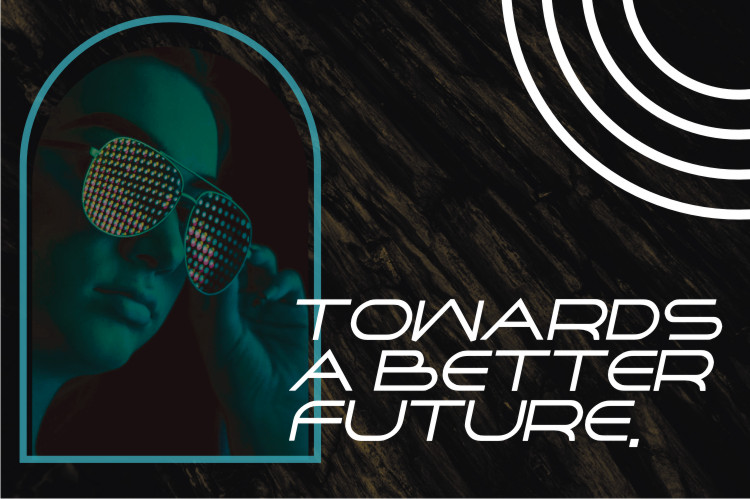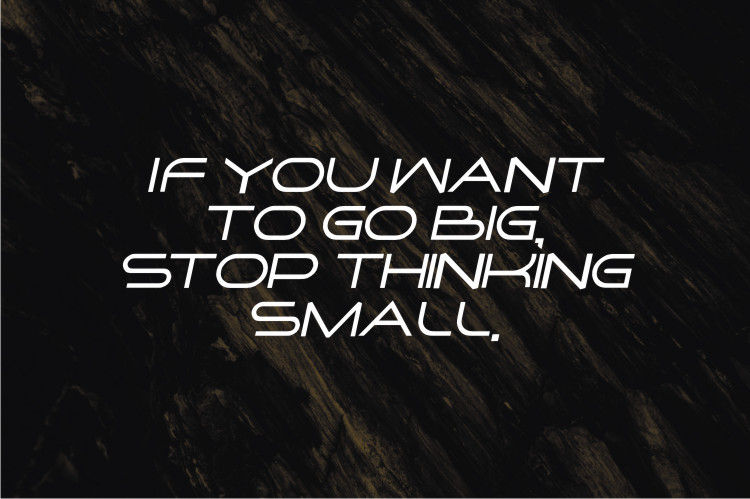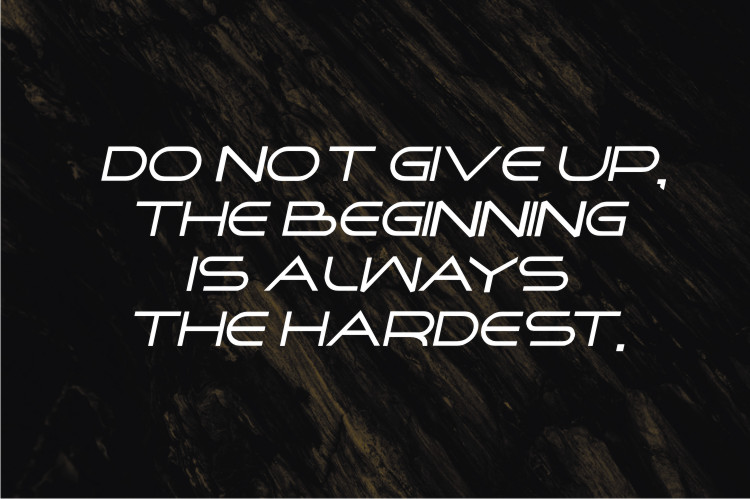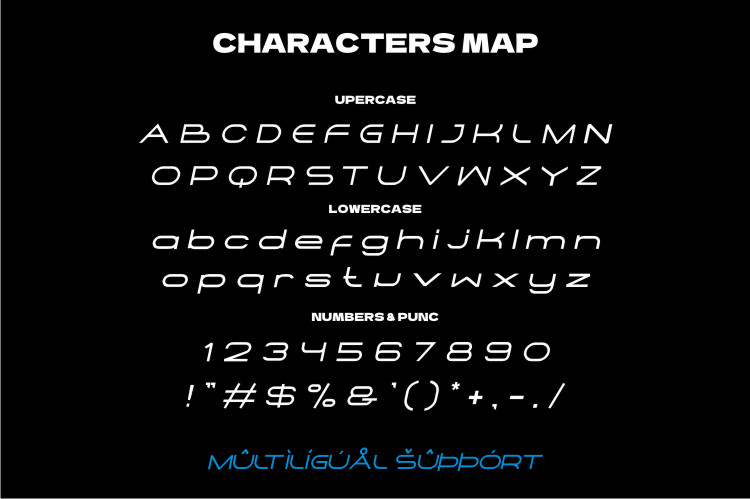
Raush Display Font
This is a cool and techno looking display font. This font is ideal for writing web designs, business cards, or pretty much anything else that requires a smart, unique touch.